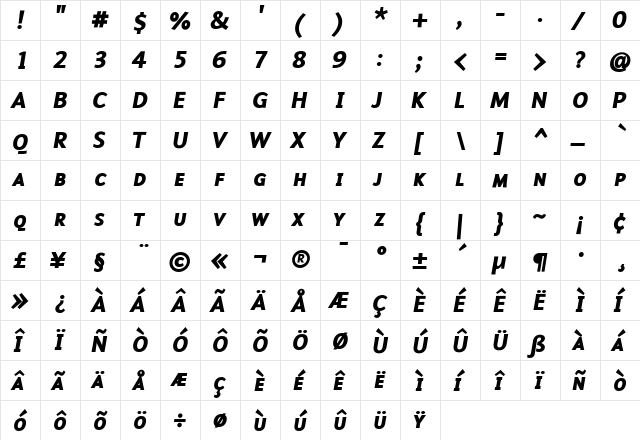
Malcom Bold Italic
Design Context for Malcom Typeface
Malcom offers clean, dependable letterforms without strong stylistic allegiance, making it a practical choice for designers who need flexibility. The slanted form adds forward momentum and visual energy. The heavy weight commands attention and anchors typographic hierarchies.
Pro Tip: Use Malcom for emphasis, pull quotes, and subheadings where its slanted energy can add rhythm to the layout.